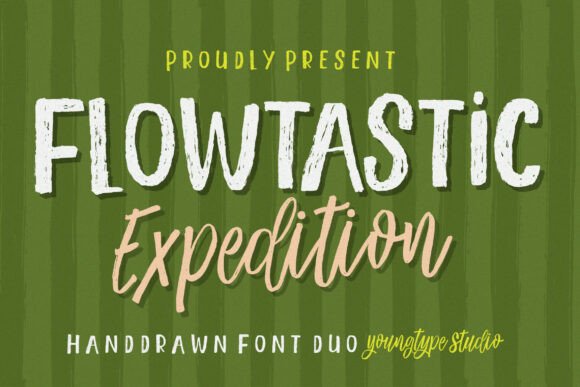
Introducing Flowtastic Expedition Font: Elevate Your Designs with a Playful Hand-Drawn Font Duo
In the world of typography, few font combinations can evoke the same level of excitement and adventure as the Flowtastic Expedition font duo. This unique pairing of bold, textured lettering with a smooth and natural script is specifically designed to bring a cheerful and adventurous vibe to your creative projects. Whether you’re working on posters, branding, packaging, invitations, or social media designs, Flowtastic Expedition is the perfect choice to add a touch of warmth and authenticity to your work.
The Unique Characteristics of Flowtastic Expedition
Flowtastic Expedition is a hand-drawn font duo that combines two distinct styles to create a truly unique visual experience. The bold, textured lettering is perfect for headlines and titles, while the smooth and natural script is ideal for body text and descriptions. This contrast between the two styles creates a visually appealing effect that adds depth and character to your designs.
One of the standout features of Flowtastic Expedition is its handcrafted style. Each letter has been carefully drawn to add warmth and authenticity to your designs. This personal touch makes every project feel special and full of character, setting it apart from more generic font combinations.
Perfect for Creative Projects
Flowtastic Expedition is incredibly versatile and can be used in a wide range of creative projects. Here are some ideas to get you started:
- Posters: Create eye-catching posters for events, promotions, or awareness campaigns with the bold and playful Flowtastic Expedition font duo.
- Branding: Establish a unique brand identity with Flowtastic Expedition’s hand-drawn style, perfect for logos, business cards, and letterheads.
- Packaging: Add a touch of personality to your product packaging with Flowtastic Expedition’s cheerful and adventurous vibe.
- Invitations: Design beautiful and unique invitations for weddings, parties, or events with Flowtastic Expedition’s smooth and natural script.
- Social Media Designs: Elevate your social media presence with Flowtastic Expedition’s bold and playful font duo, perfect for graphics, quotes, and promotions.
The Benefits of Using Flowtastic Expedition
So why choose Flowtastic Expedition for your next project? Here are just a few benefits of using this unique font duo:
- Unique and Playful: Flowtastic Expedition adds a touch of whimsy and adventure to your designs, setting them apart from more generic font combinations.
- Handcrafted Style: Each letter has been carefully drawn to add warmth and authenticity to your designs, making every project feel special and full of character.
- Versatile: Flowtastic Expedition can be used in a wide range of creative projects, from posters and branding to packaging and social media designs.
Tips for Using Flowtastic Expedition
To get the most out of Flowtastic Expedition, here are a few tips to keep in mind:
- Mix and Match: Experiment with different font combinations to find the perfect balance between bold and playful.
- Play with Texture: Use Flowtastic Expedition’s textured lettering to add depth and interest to your designs.
- Keep it Simple: Don’t be afraid to keep things simple and use Flowtastic Expedition’s smooth and natural script for body text and descriptions.
In conclusion, Flowtastic Expedition is a unique and playful hand-drawn font duo that’s perfect for creative projects that require a cheerful and adventurous vibe. With its handcrafted style, versatility, and ease of use, Flowtastic Expedition is an excellent choice for designers looking to add a touch of personality to their work. Whether you’re working on posters, branding, packaging, invitations, or social media designs, Flowtastic Expedition is sure to elevate your designs and make them stand out from the crowd.